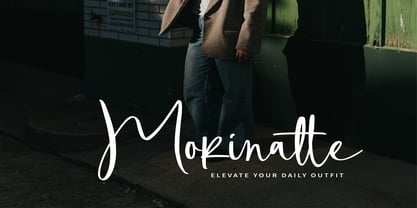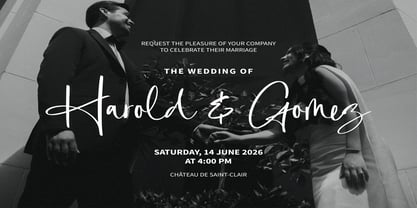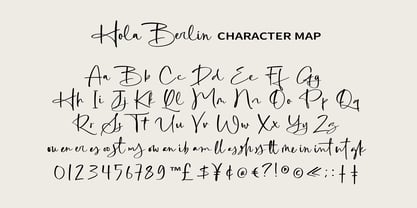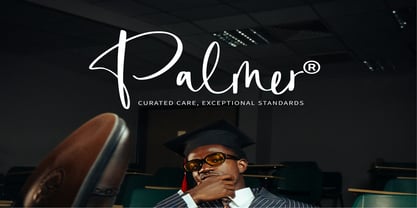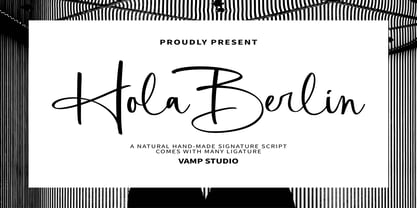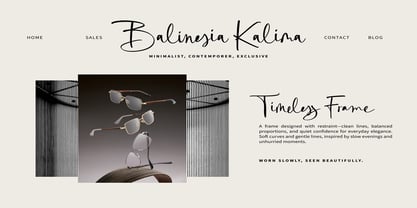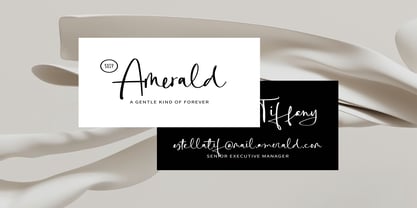
Hola Berlin
The Hola Berlin Font Family was designed by Irfan syah and published by Vampstudio. Hola Berlin contains 1 styles. More about this family
Hola Berlin is an elegant signature script font designed to deliver a natural handwritten feel with a stylish and modern appearance. This font features smooth flowing strokes, balanced curves, and authentic signature details that make it perfect for branding, logo design, invitations, social media graphics, and luxury product packaging. Crafted with attention to detail, Hola Berlin provides excellent readability while maintaining an artistic handwritten personality. The font includes multilingual support and additional stylistic characters to enhance design flexibility. Whether you are creating elegant branding, feminine design layouts, or professional signature logos, Hola Berlin brings a sophisticated and timeless visual touch.